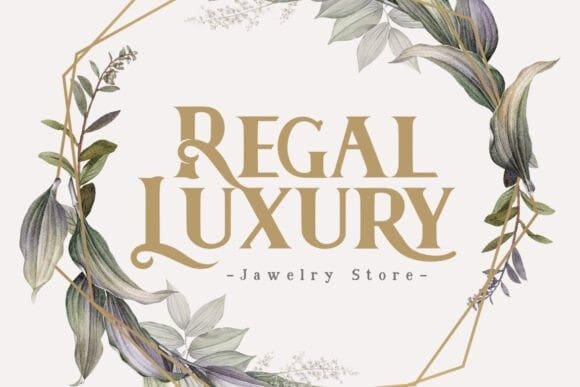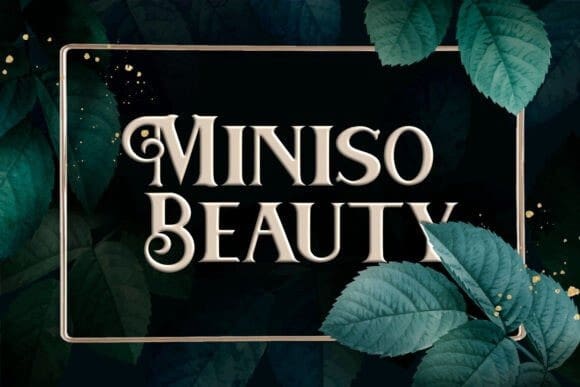
The Bridley Font
The Bridley Font Font a New Elegant Font, This font is made with a high premium quality level which you can use as flyers, quotes, posters, banners, packaging, merchandise, logotypes and much more.